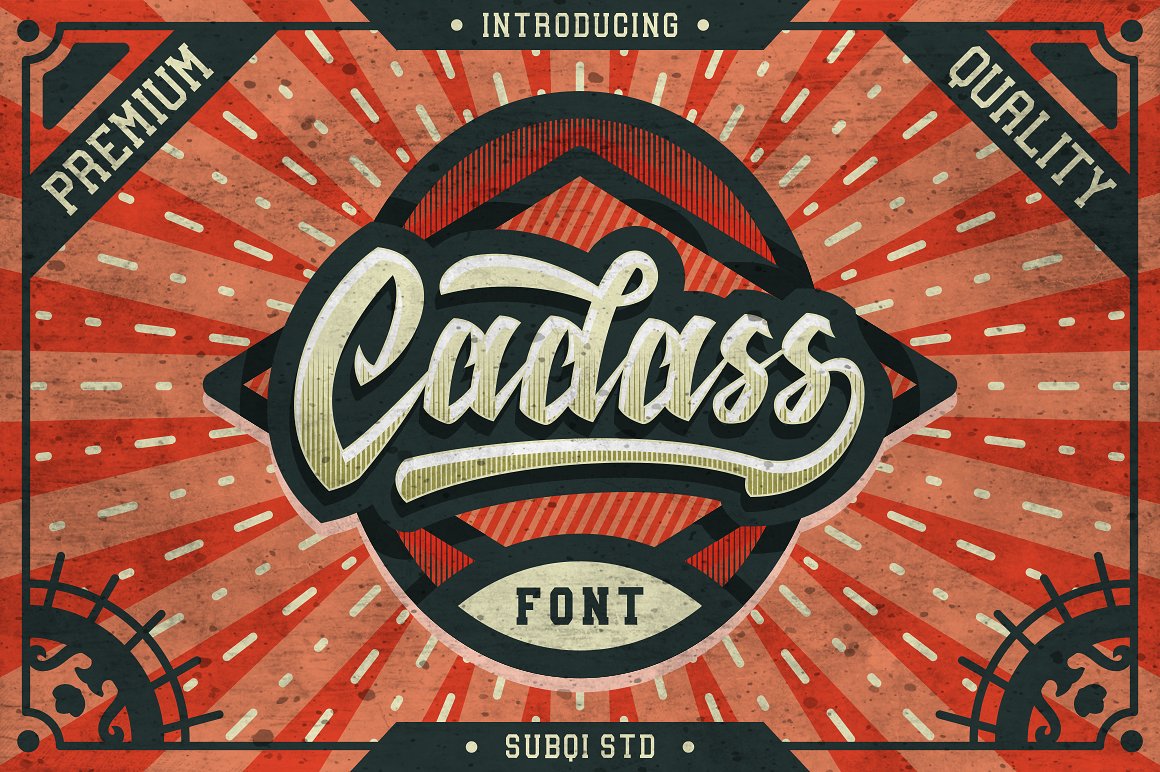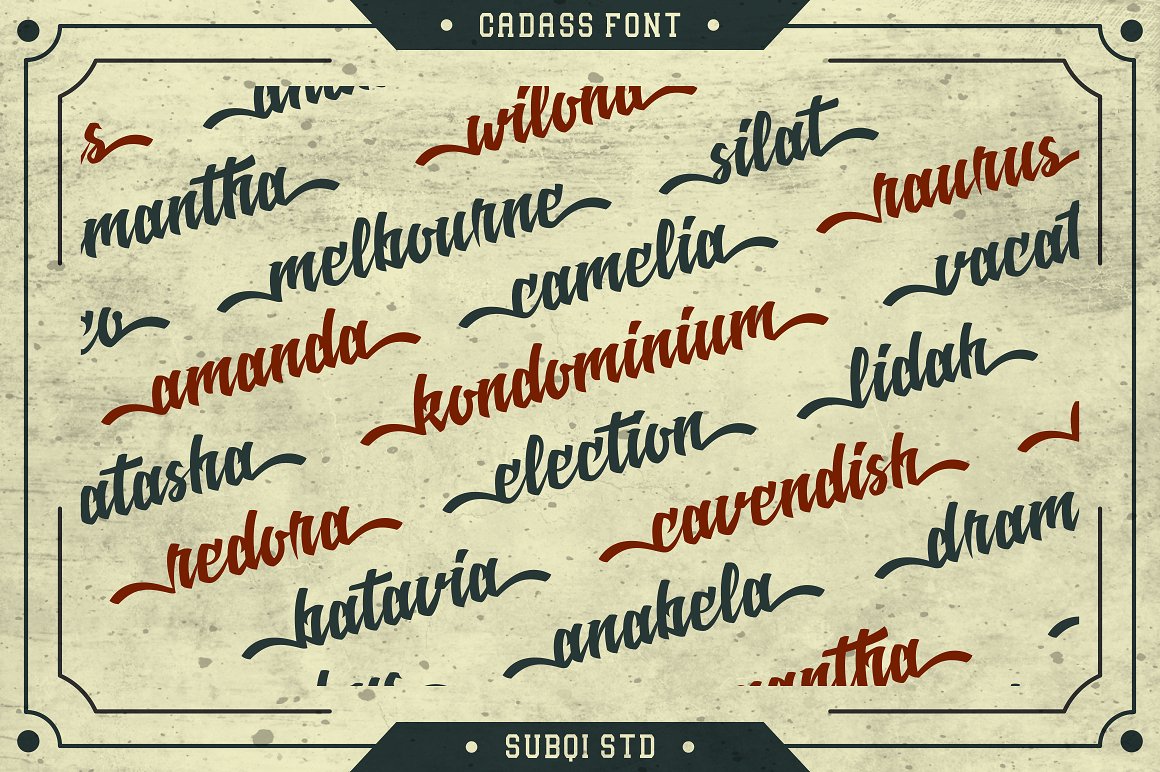
Cadass Typeface
Hi Everyone !.. Let us Introduce our very first font ever made. It’s called Cadass Script Font , It’s included Script as main font and Serif version for display companion. This font inspired by Vintage Label design. But still can be used for modern style purpose. Perfect for logotype, label design. poster, flyer, display and many more.